Street Fonts: Graffiti Alphabets from Around the World
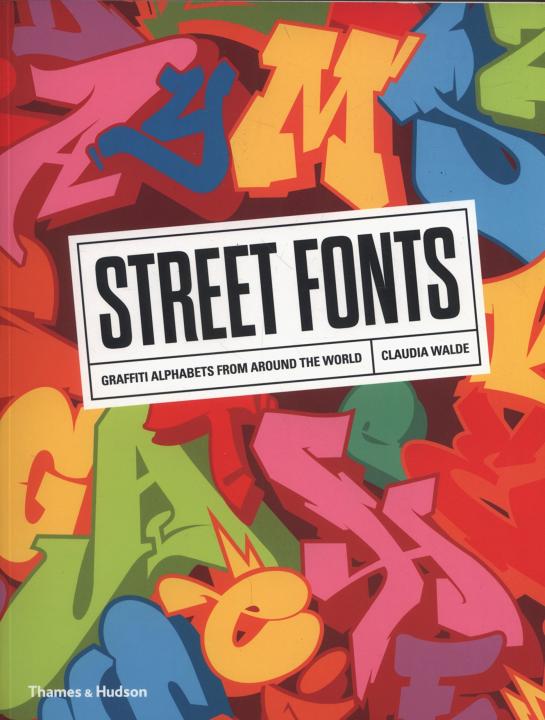
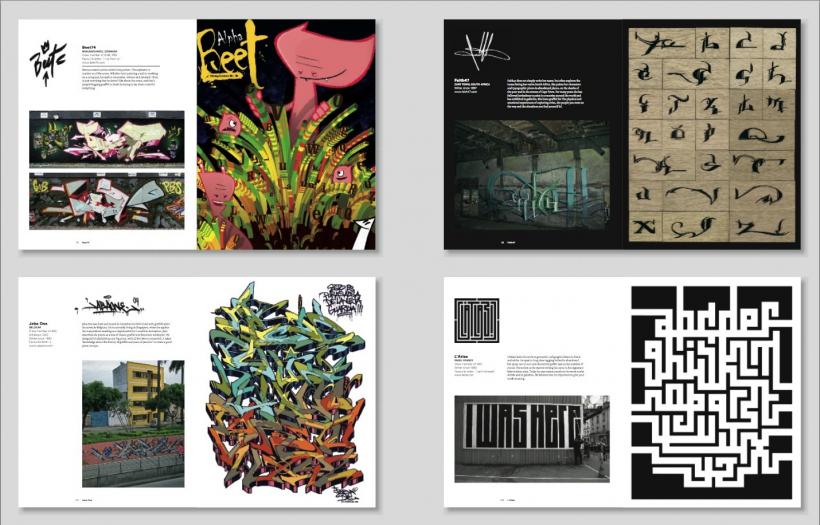
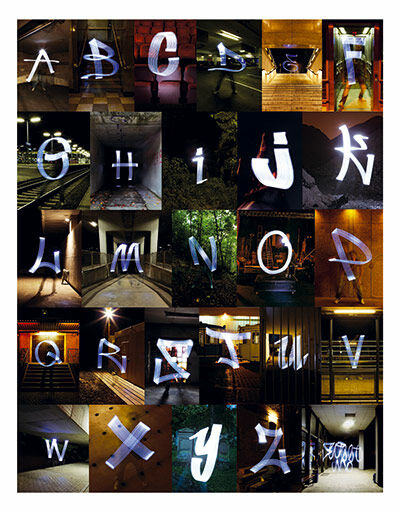
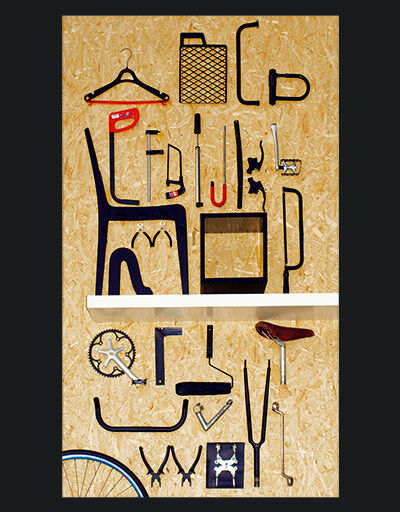
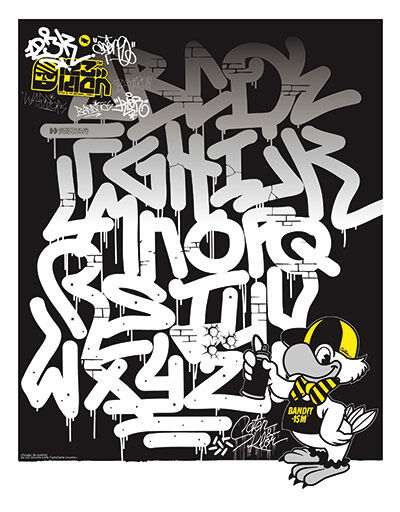
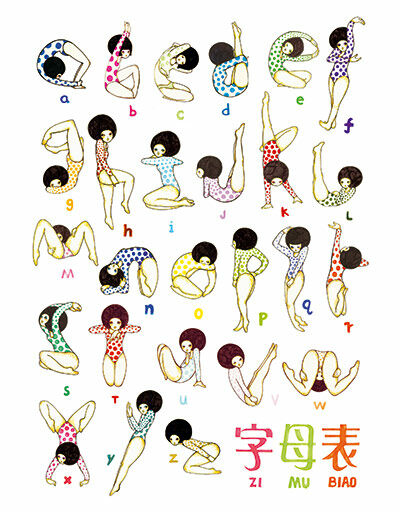
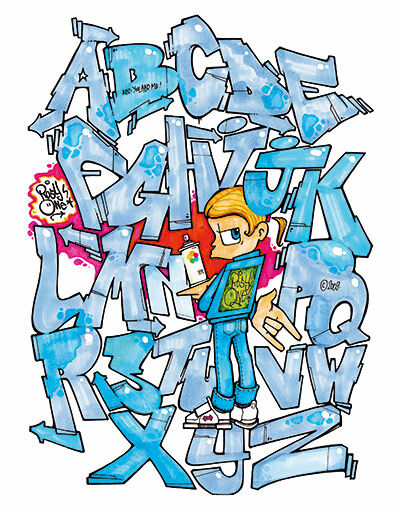
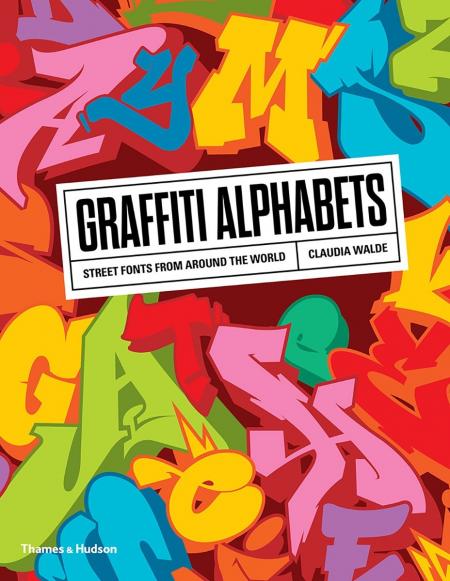
A unique typographical sourcebook featuring over 150 specially designed, original alphabets exclusive to this book
Classic graffiti lettering and experimental typographical forms lie at the heart of street culture and have long inspired designers in many different fields. But graffiti artists, who tend to paint the same letters of their tag again and again, rarely design complete alphabets.
Claudia Walde spent over two years collecting alphabets by 154 artists from thirty countries to show the many different styles and approaches to lettering within the graffiti and street art cultures. All of the artists have roots in graffiti. Some are world-renowned, such as 123 Klan (Canada), Faith47 (South Africa), and Hera (Germany); others are lesser-known or only now starting to emerge.
Each artist received the same instructions: design all 26 letters of the Latin alphabet within the limits of a single page of the book. How they approached this task and selected the media with which to express their ideas was entirely up to them, and the results encompass not just street art but sketches, sculpture, digital art, and photography.
This highly original book will inspire fans of street culture as well as typographers, graphic designers, advertising and communication students and design professionals worldwide.
Introduction • The Artists and their Alphabets A– Z • Acknowledgements